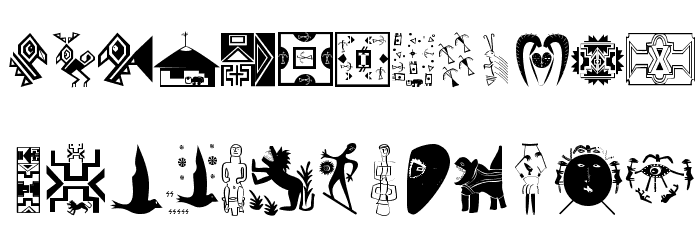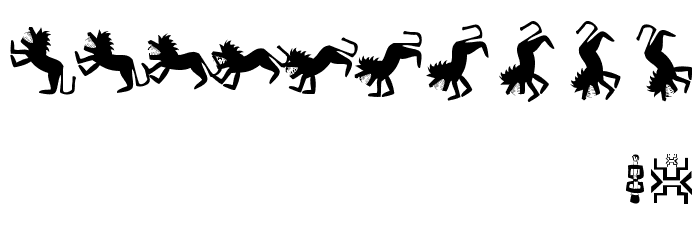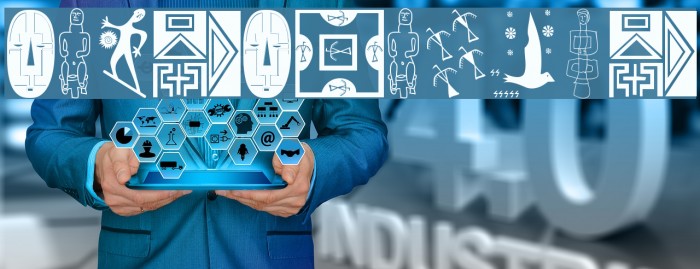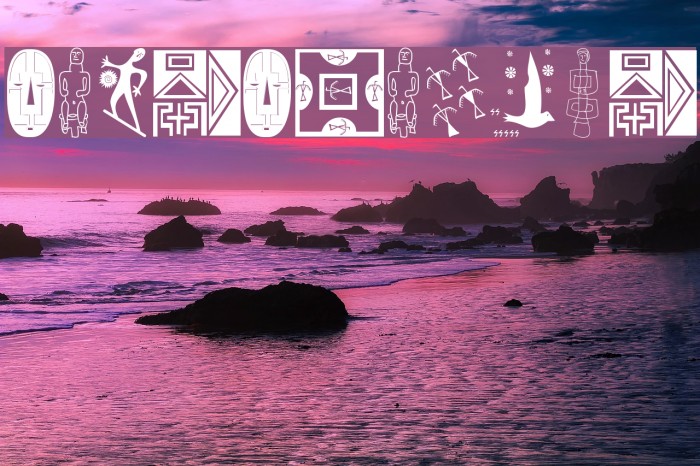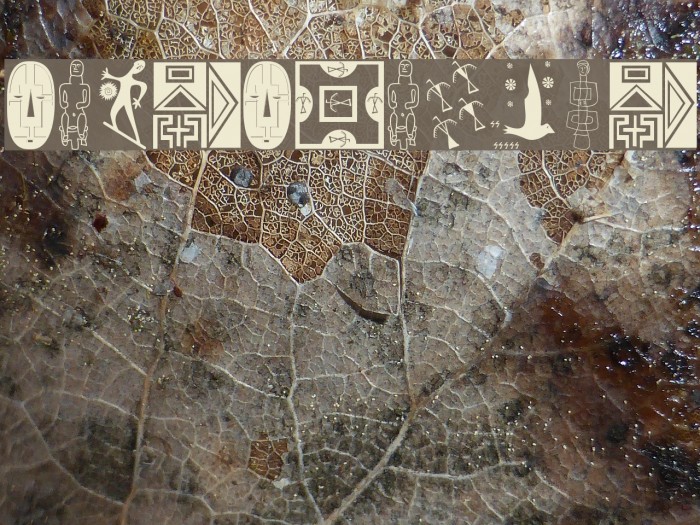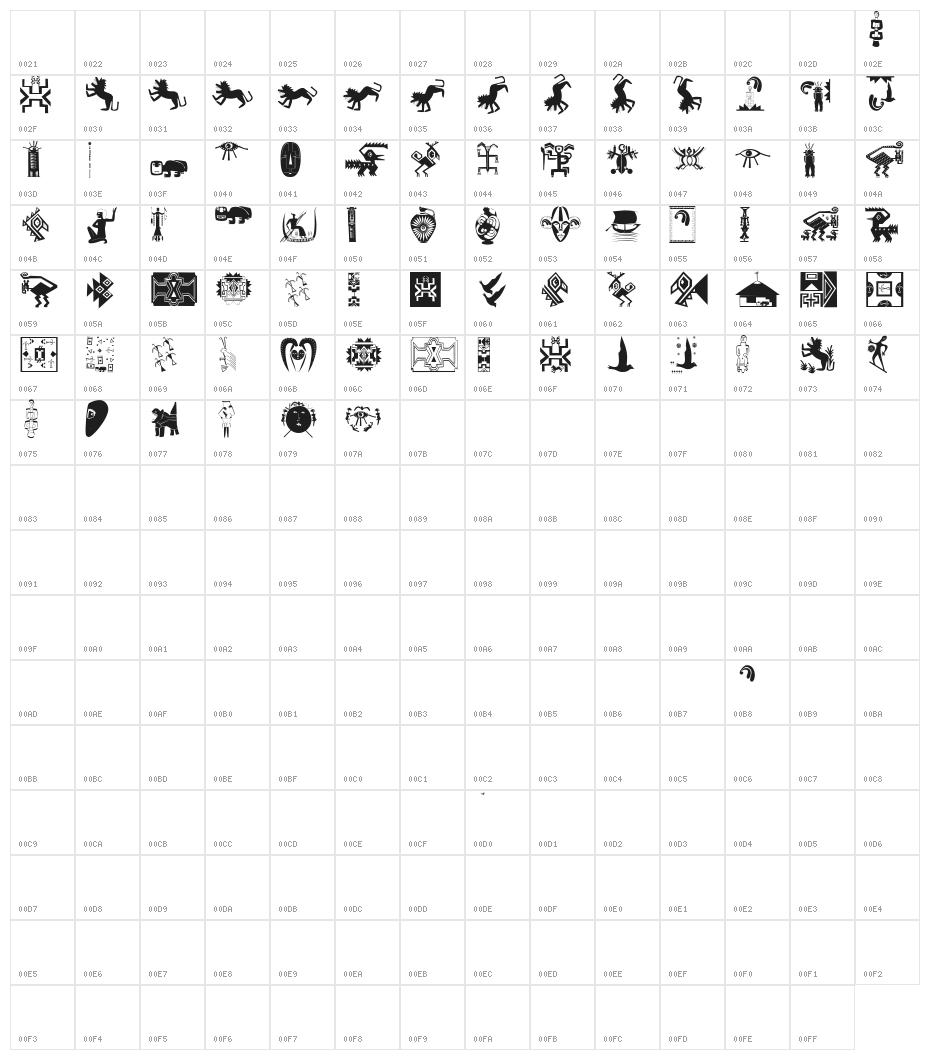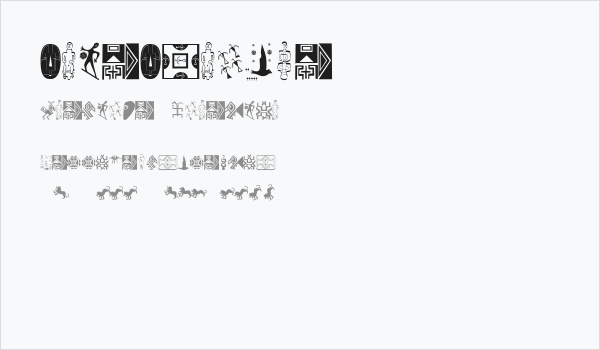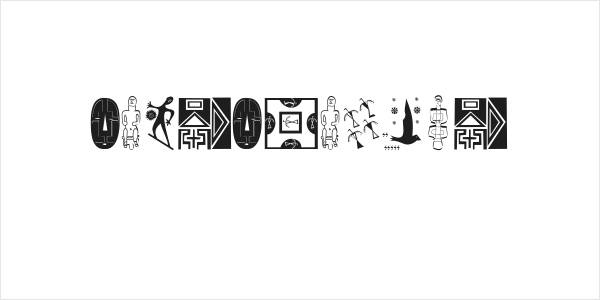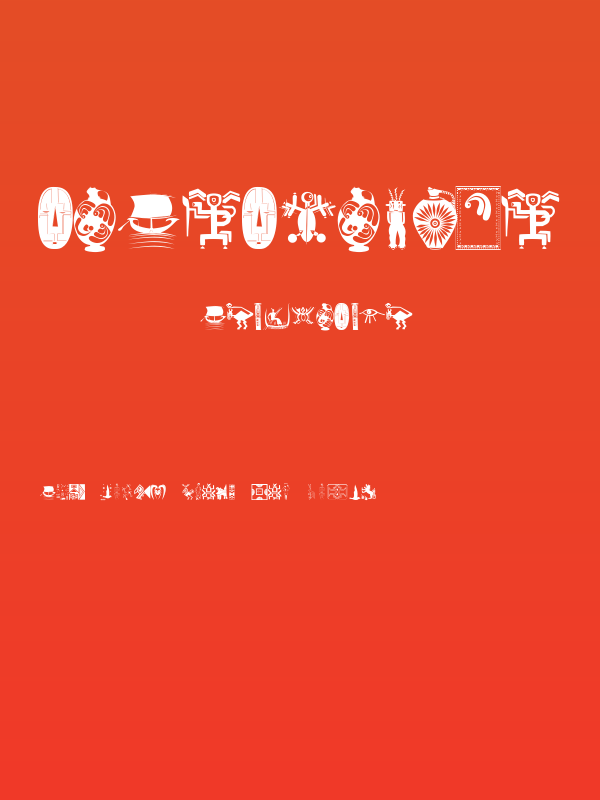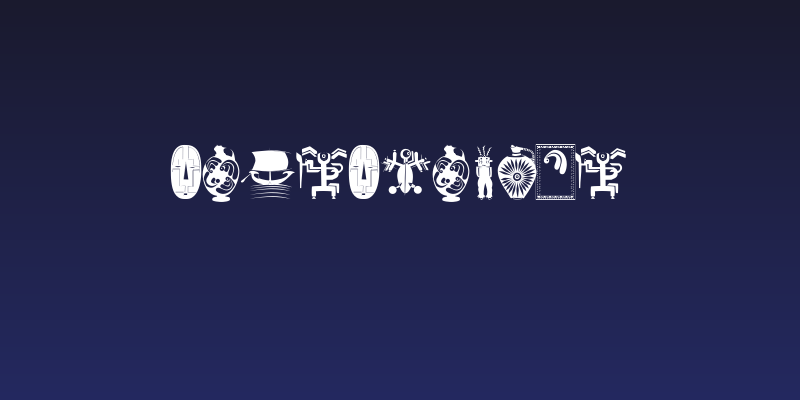
ArteAfrique Font
This font is a decorative collection of symbols and icons inspired by African art and culture. It features a variety of intricate and abstract designs, including tribal masks, animals, and geometric patterns. The characters are bold and striking, with a strong emphasis on visual storytelling and cultural motifs. Each symbol is unique, showcasing a blend of traditional and modern artistic elements. The font is highly detailed, with complex shapes and forms that capture the essence of African heritage and artistic expression.
A decorative font inspired by African art, featuring bold and intricate symbols.
- Proposed Projects: Ideal for cultural projects, art exhibitions, educational materials, and themed event promotions.
- Use Case: Logos, Posters, Cultural Events